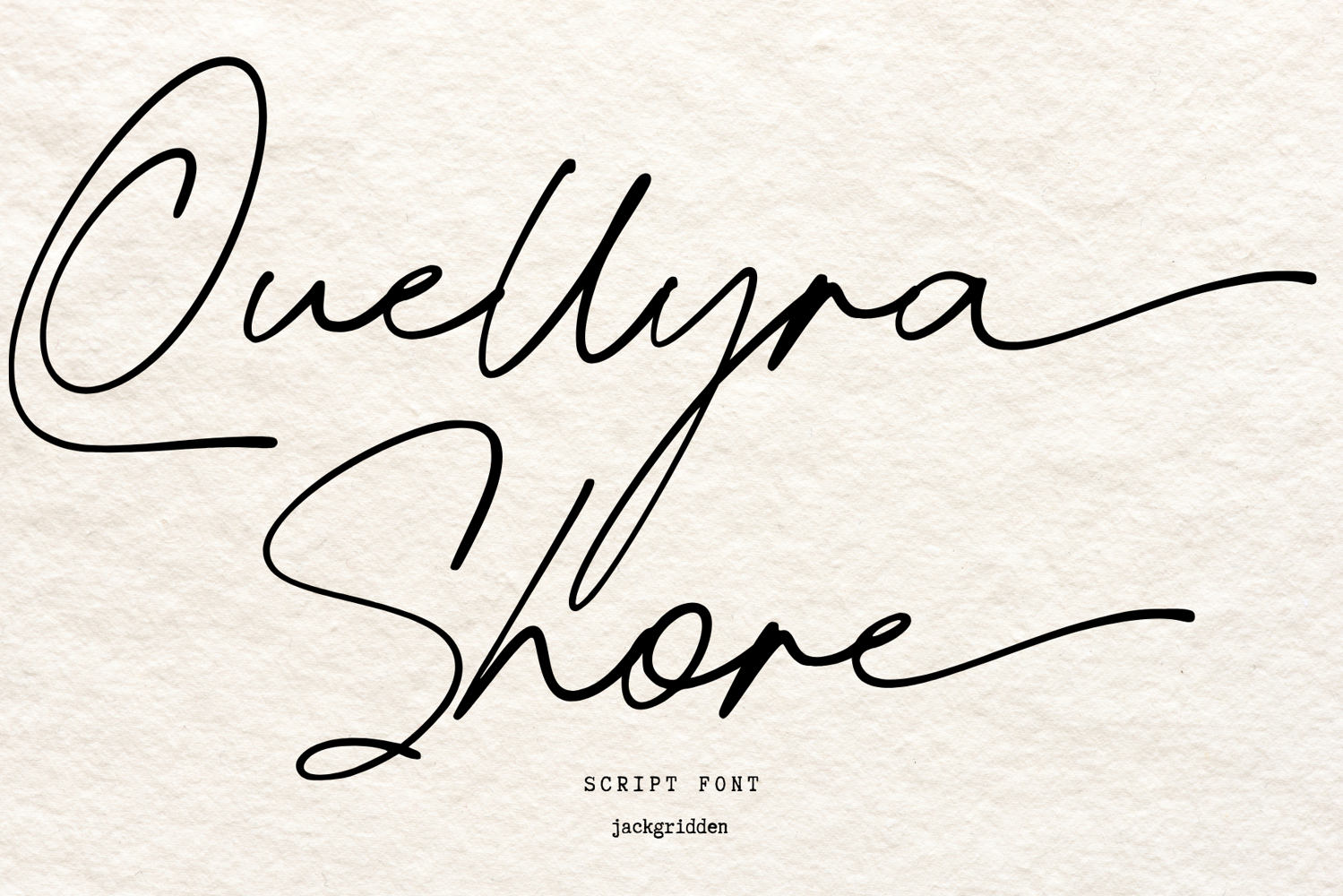
Quellyra Shore
Quellyra Shore is a graceful and elegant handwritten script font featuring smooth flowing strokes and beautiful natural curves. This font is designed to bring a modern, romantic, and feminine touch to your creative projects.